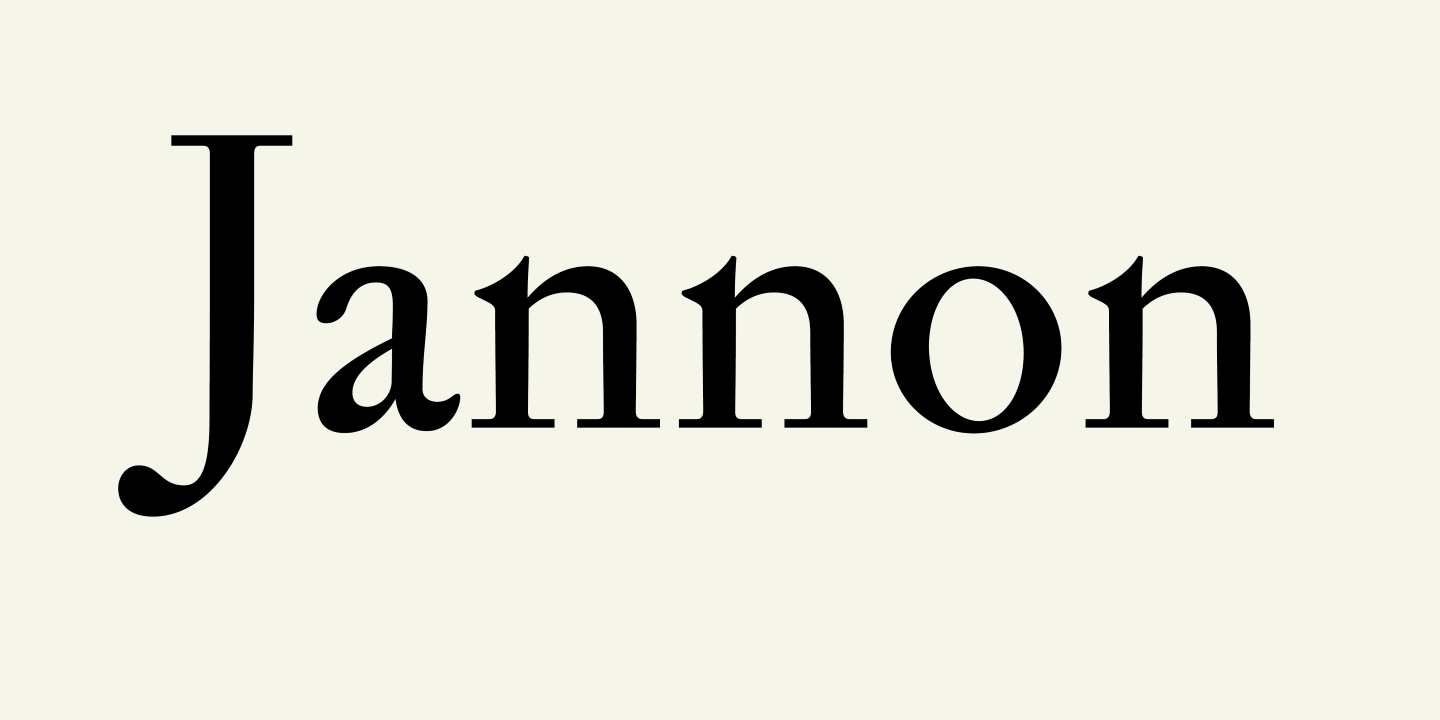
Jannon Pro Font is perfect for editorial design, book publishing, magazine layouts, newspaper headlines, academic publications, legal documents, corporate branding, luxury packaging, high-end marketing materials, and professional presentations. This versatile typeface excels in both digital and print media applications.
What makes Jannon Pro Font exciting is its exceptional readability combined with classical elegance. This font captures the essence of traditional typography while maintaining modern functionality. The carefully crafted letterforms provide excellent legibility at both small and large sizes, making it an ideal choice for designers who demand both beauty and practicality in their typographic solutions.
Jannon Pro Font family includes Regular, Italic, Bold, Bold Italic, Light, Light Italic, Medium, Medium Italic, Semibold, Semibold Italic, Black, and Black Italic variants. Each weight maintains the font's distinctive character while offering designers complete flexibility for hierarchical text arrangements and creative typography projects.
The Jannon Pro Font Free Download offers designers access to a premium typeface that bridges classical typography traditions with contemporary design needs. This font's sophisticated appearance makes it particularly suitable for luxury brands, high-end publications, and professional documents where credibility and elegance are paramount.
Typography enthusiasts will appreciate the font's OpenType features, including ligatures, small caps, old-style figures, and extensive language support. The character set covers Latin, Cyrillic, and Greek scripts, making it valuable for international projects and multilingual publications.
When working with Jannon Pro Font, designers can create compelling visual hierarchies through its comprehensive weight range. The font's balanced proportions and refined details ensure consistent performance across various media formats, from business cards to billboards.
For web typography, Jannon Pro Font renders beautifully across different devices and screen resolutions. Its optimized hinting ensures crisp display quality on both retina and standard displays, making it an excellent choice for responsive web design projects.
Professional designers recognize Jannon Pro Font as a valuable addition to their typography toolkit, offering reliability, beauty, and versatility for demanding design projects.